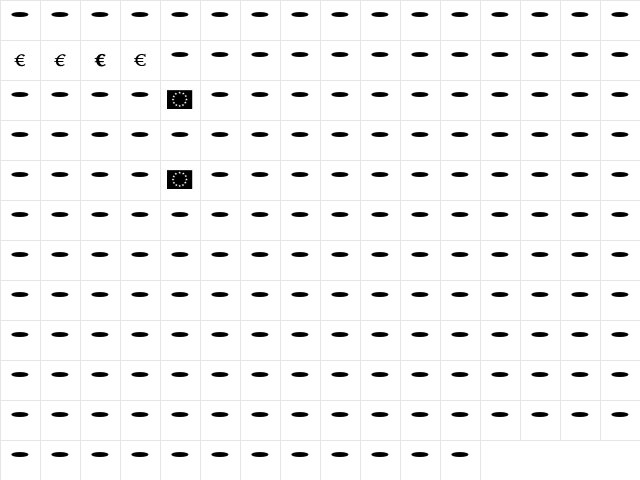
Scala Euro
Style: Euro
Design Context for Scala
Scala is a composed and adaptable typeface that performs quietly and consistently across a wide range of design contexts.